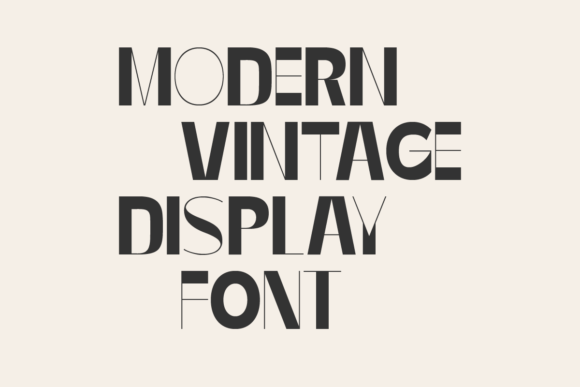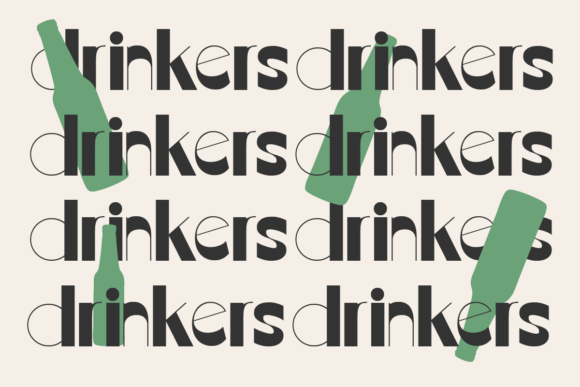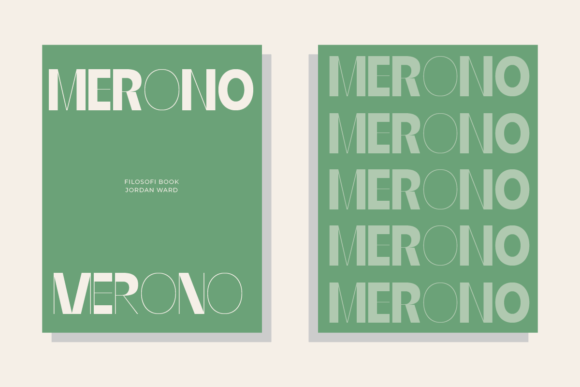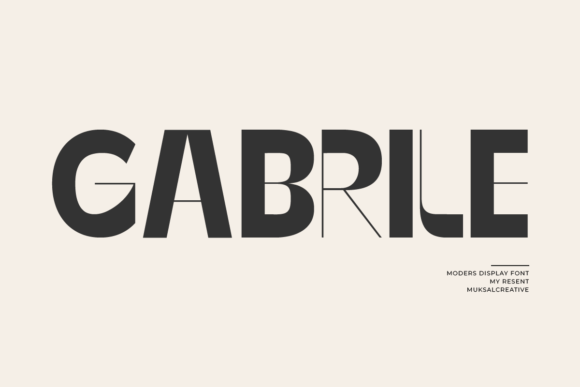
Introduction to Gabrile Font
Gabriele is a modern display font with special glyphs, ornaments and multilingual support.
It’s a very versatile font that works great in large and small sizes Perfect for editorial projects, Logo design, Clothing Branding, product packaging, magazine headers, or simply as a stylish text overlay to any background image.
Key Features of Gabrile Font
Why Choose Gabrile Font?
Gabrile Font offers exceptional quality and versatility, making it a valuable addition to your design toolkit. Whether you’re creating for personal projects or commercial use, Gabrile Font delivers professional results.